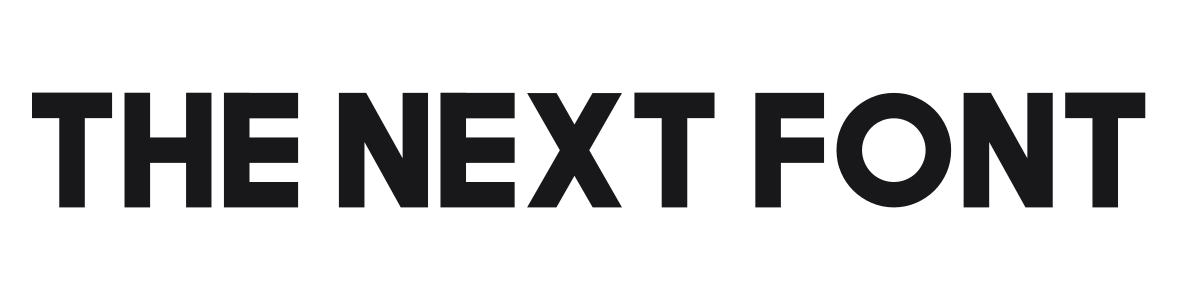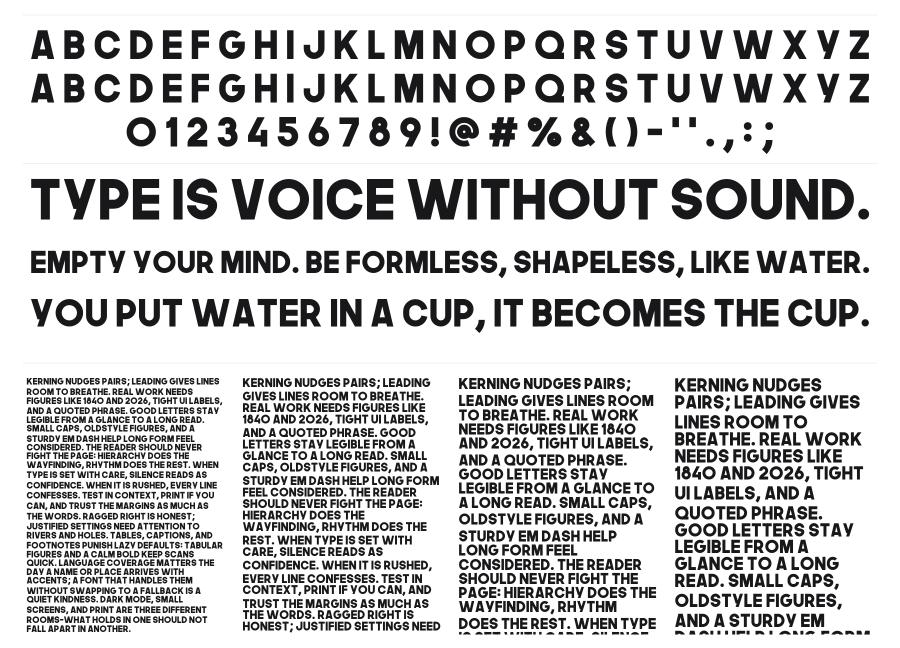
The Next Font
by Sven Pels
The Next Font is a bold, wide grotesque sans with heavy monoweight strokes and subtly rounded terminals. It sits in familiar neo-grotesque territory but carries enough weight and openness to feel contemporary rather than derivative. Strong at large sizes for headlines, branding, and editorial work.